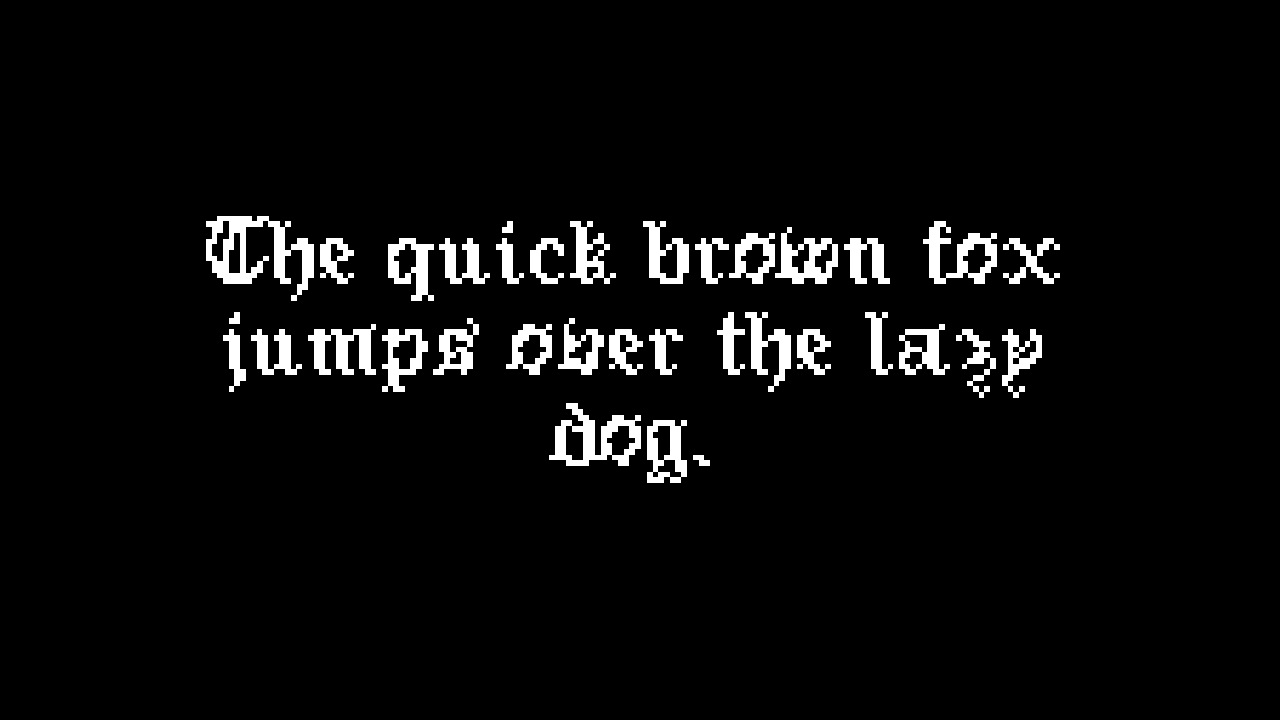
Introduction to Pixeled English Font Font
Fonts play a crucial role in design, and the Pixeled English Font font is a typeface that brings both character and versatility to any project. Whether you’re working on a branding project, a website, or a print design, the Pixeled English Font font offers a unique style that can elevate your work.
“Pixeled English Font” (previously: “Pixel Gothic Font”) is a pixel/bitmap font inspired by William Caslon’s typefaces and the Old English Font.
Key Features of Pixeled English Font Font
Why Choose Pixeled English Font Font?
The Pixeled English Font font is more than just a typeface – it’s a design tool that helps you communicate your message with style and clarity. Its unique character set and versatile design make it suitable for a wide range of applications, from elegant invitations to bold headlines.
With its carefully crafted letterforms and balanced proportions, the Pixeled English Font font ensures readability and visual appeal across all mediums.
What makes Pixeled English Font font special?
The Pixeled English Font font stands out with its unique design, exceptional readability, and versatility across various design applications.